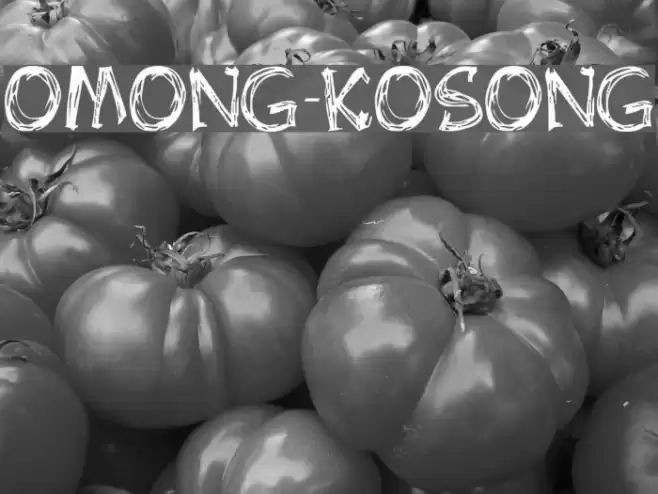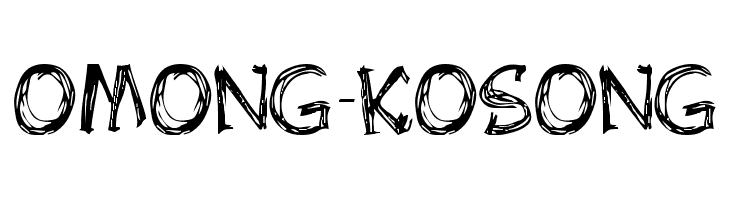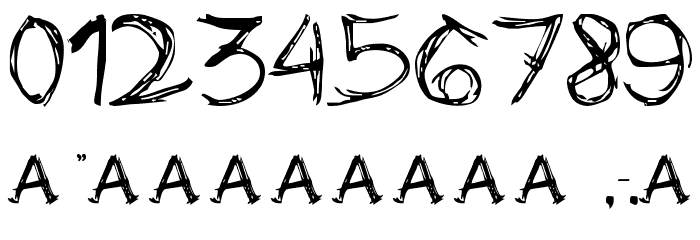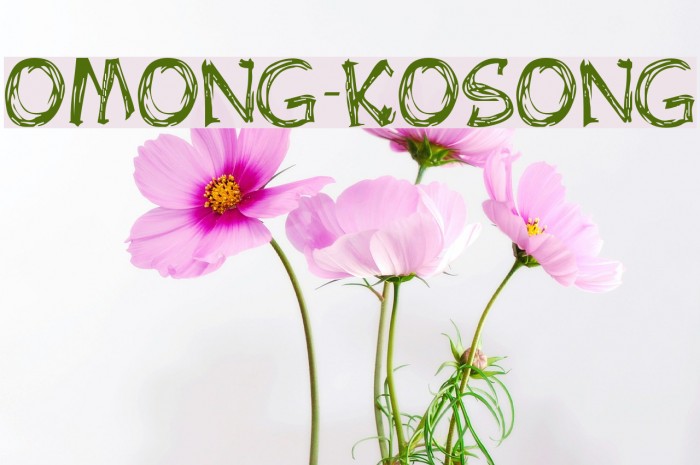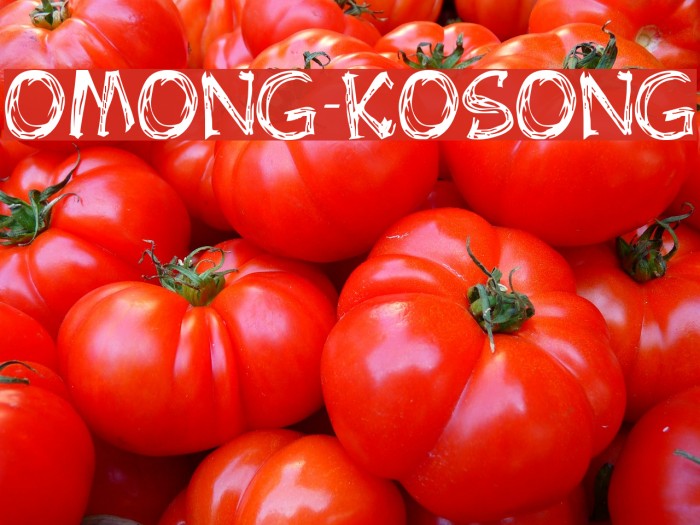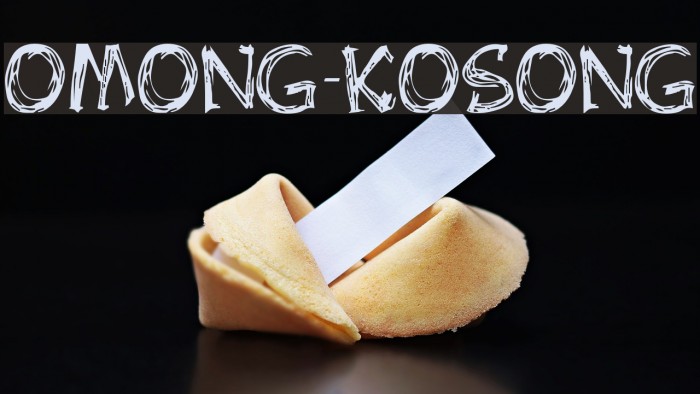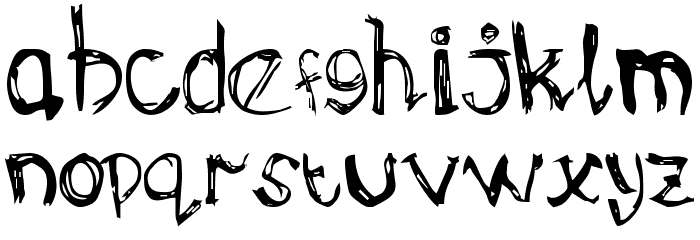
OMONG-KOSONG Font
OMONG-KOSONG Description
This font features a highly decorative and artistic style, characterized by its rough, hand-drawn appearance. Each letter is uniquely crafted with irregular edges and varying stroke thickness, giving it a dynamic and energetic feel. The uppercase and lowercase letters maintain a consistent theme of spontaneity, with some characters appearing more abstract than others. Numbers and special characters follow the same artistic approach, ensuring a cohesive look across all glyphs. The font's overall design suggests a sense of movement and creativity, making it stand out in any application.
A decorative, hand-drawn font with an energetic and artistic style from Uncategorized fonts.
- Proposed Projects: Ideal for creative projects such as posters, album covers, and artistic branding. It can also be used for event invitations or any design requiring a bold, artistic statement.
- Use Case: Logos, Headlines, Artistic projects